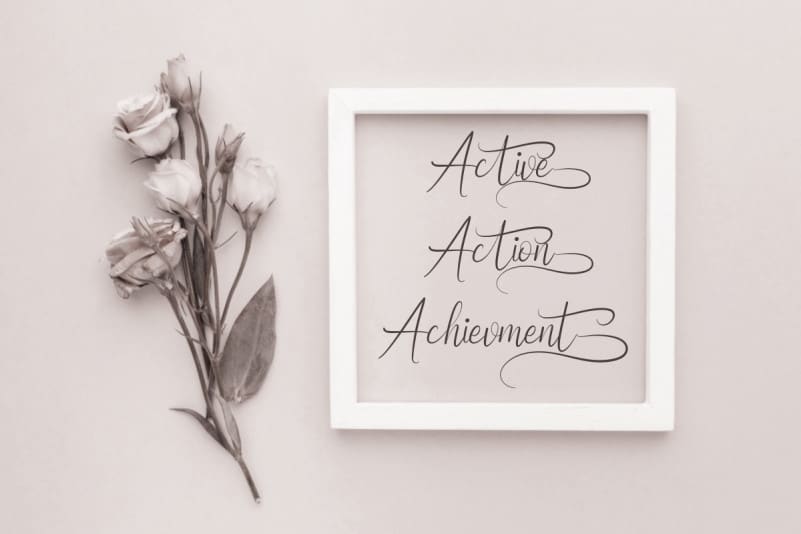
Fieldstone Calligraphy Font
Fieldstone Calligraphy Font is a Modern brush calligraphy font. The style of this font are stylish, clean, elegant, luxury and classic brush font.